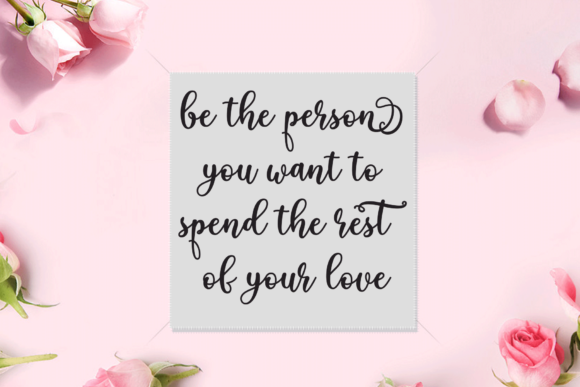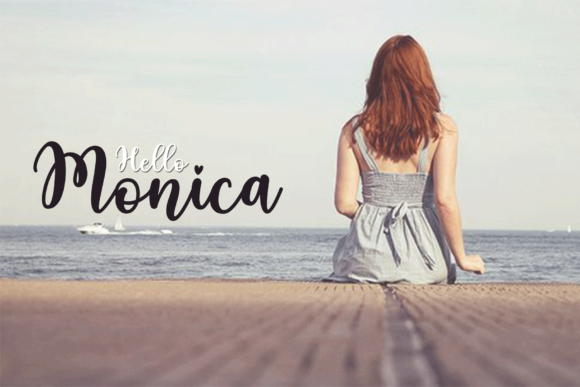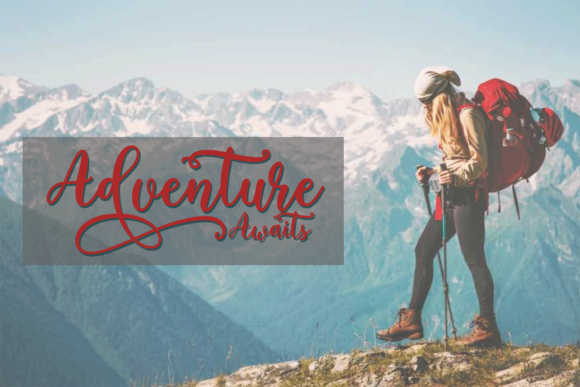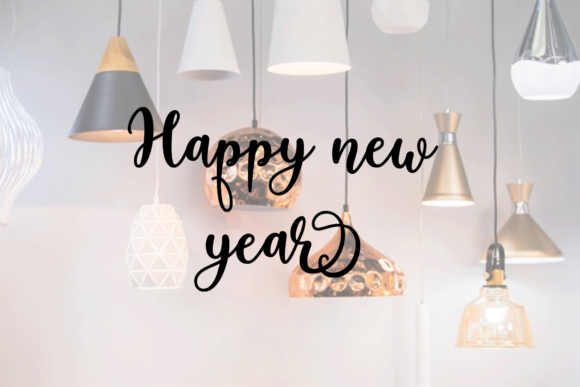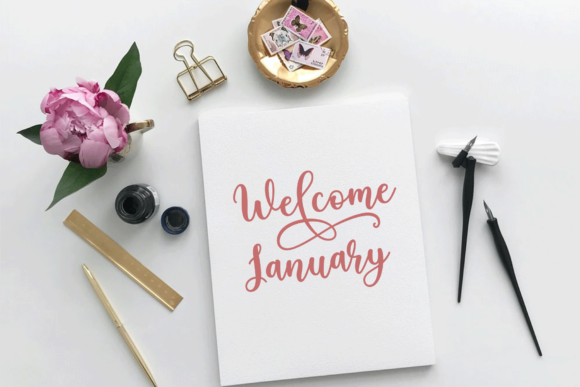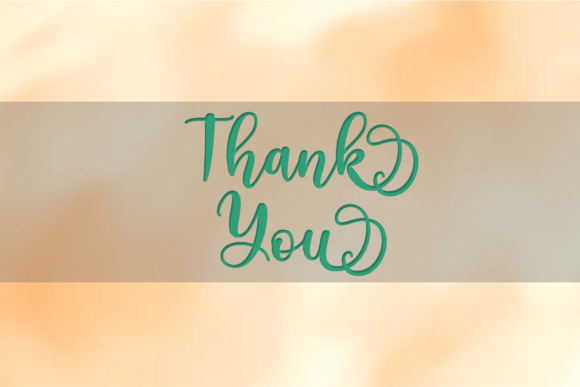
When Words Become Art: The Allure of Beautiful Love Font
Have you ever been working on a project, pouring your heart and soul into every detail, and then – it happens – the perfect font appears. The words seem to dance on the page, and suddenly, your creation is elevated to a whole new level. This is exactly what can happen when you fall in love with the Beautiful Love Font.
Beautiful Love Font is a masterfully designed handwritten font that effortlessly combines classy calligraphic influences with a fresh, contemporary feel. It’s the perfect choice for designers who want to add a touch of elegance and sophistication to their projects. With its PUA encoding, you can easily access all the glyphs and swashes, making it a valuable addition to any designer’s toolkit.
Beautiful Love Font Key Features
- Character Count: The font includes 800+ glyphs, ensuring you have a wide range of characters to choose from.
- Unique Characteristics: Beautiful Love Font features elegant, cursive script with a touch of romance, making it ideal for wedding invitations, love letters, and other romantic designs.
Beautiful Love Font Review
✨ One of the first things that caught my attention with the Beautiful Love Font was its elegant and romantic vibe. The font is perfect for any project that requires a touch of sophistication and love. It’s ideal for wedding invitations, love letters, or any design that needs to convey a sense of romance.
The Beautiful Love Font has a lovely brush script feel, which makes it stand out from other fonts. The script is delicate, yet bold enough to be readable. I also appreciate the numerous weights available, which allows for a great deal of flexibility in design.
- ⚠️ Limited language support: The font only supports Latin-based languages, which might be a concern for projects that require other languages.
- ⚠️ Not ideal for large blocks of text: Due to its script nature, the font is better suited for short phrases or sentences rather than large blocks of text.
Overall, I think the Beautiful Love Font is a beautiful addition to any designer’s toolkit. While it has its limitations, it’s perfect for projects that require a touch of romance and elegance.
Getting the Most Out of the Beautiful Love Font
To get the most out of the Beautiful Love Font, try using it in combination with other design elements such as floral patterns and pastel colors.
Use it for romantic and whimsical designs, such as wedding invitations and valentines cards.
The Beautiful Love Font is commonly used for:
Valentines cards and gifts
Romantic and whimsical designs